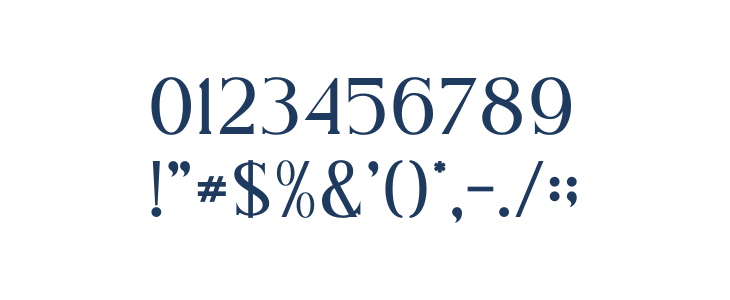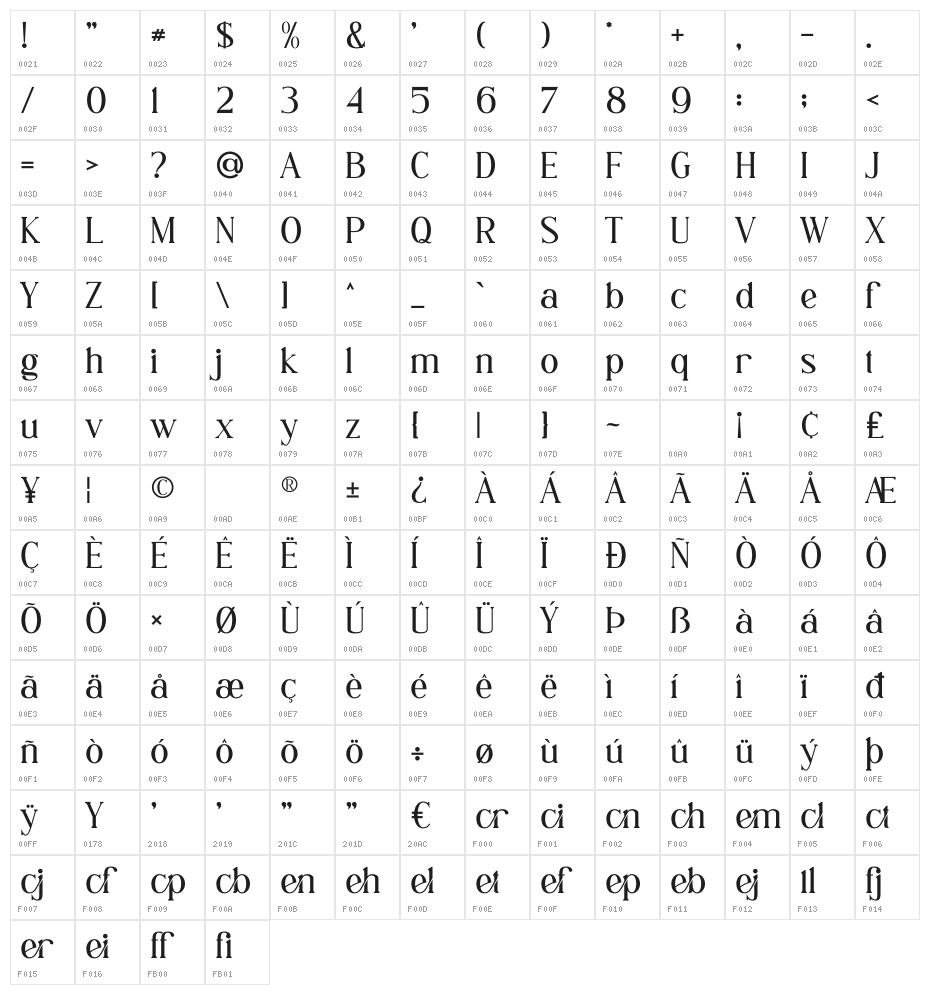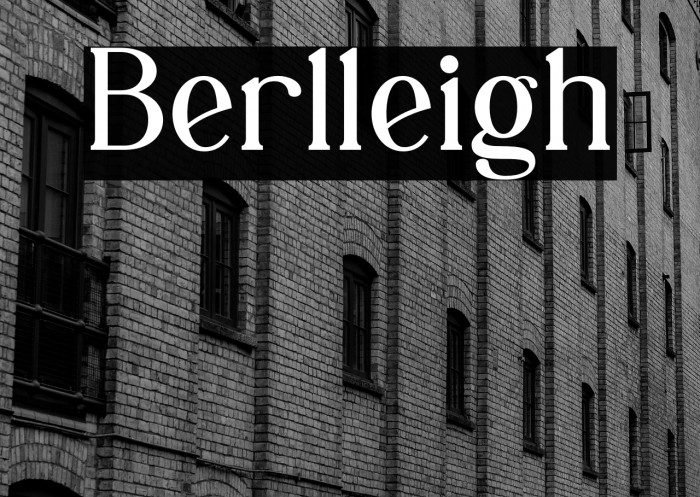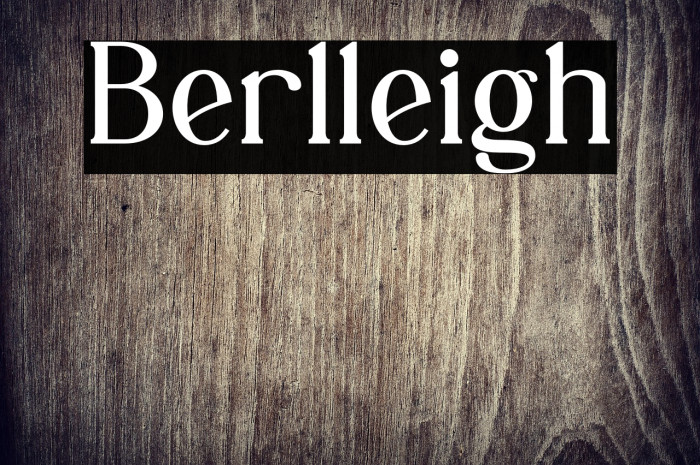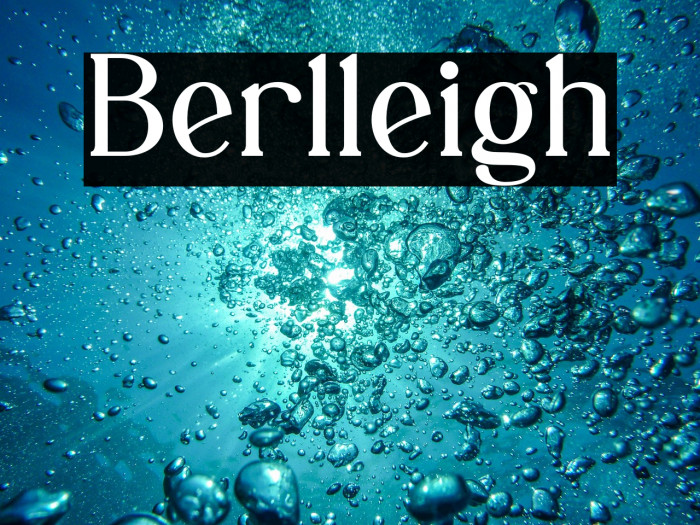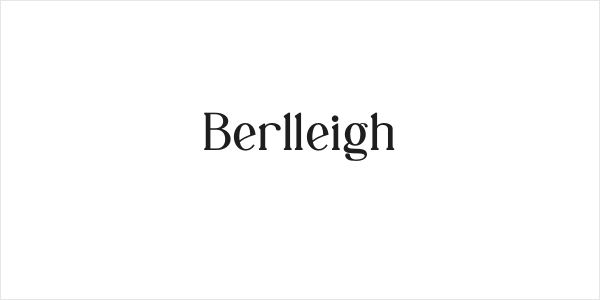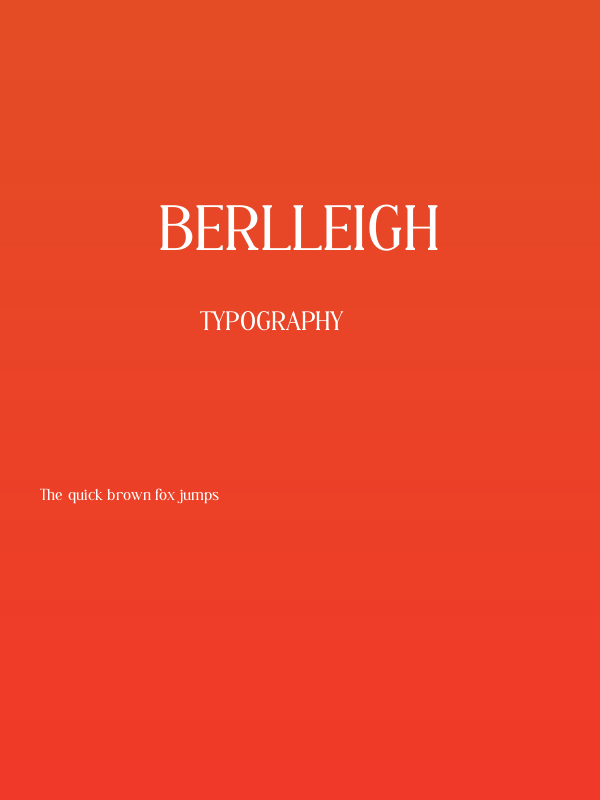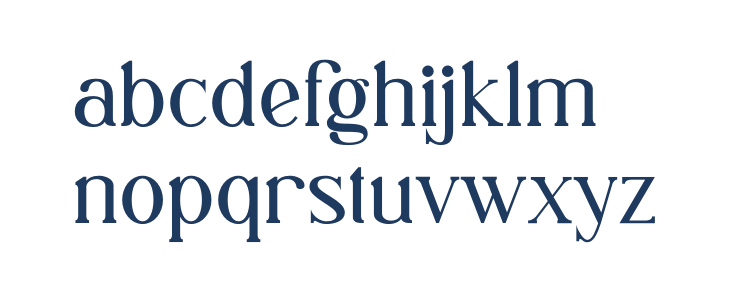
Berlleigh Font
Berlleigh Description
This font exhibits a classic serif style with elegant and refined strokes. The uppercase letters are tall and stately, featuring sharp serifs that add a touch of sophistication. The lowercase letters maintain a consistent style, with smooth curves and balanced proportions. The numerals are clear and legible, making them suitable for various applications. Special characters are well-designed, complementing the overall aesthetic of the font. The font's design is versatile, offering a timeless appeal that can enhance both modern and traditional projects.